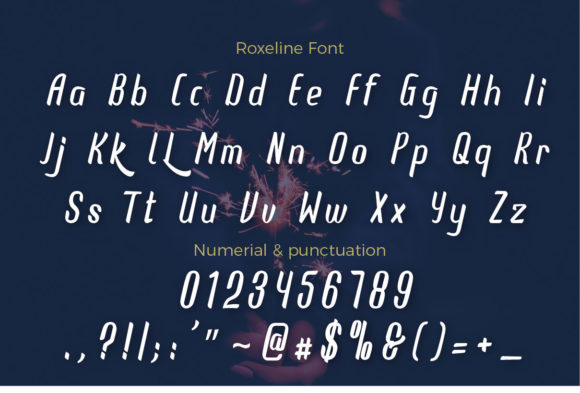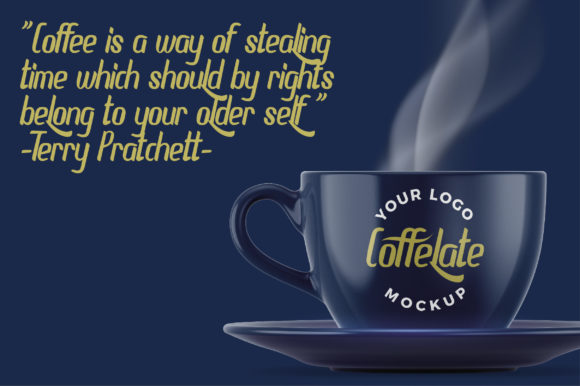
Roxeline Font
About Roxeline Font
Roxeline feels equally charming and elegant. This handwritten font will elevate a wide range of design projects to the highest level, be it branding, headings, wedding designs, invitations, signatures, logos, labels, and much more!